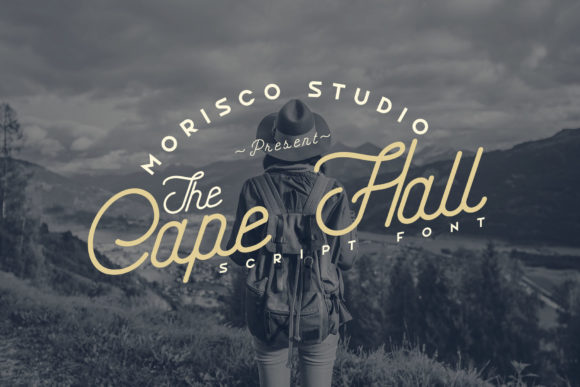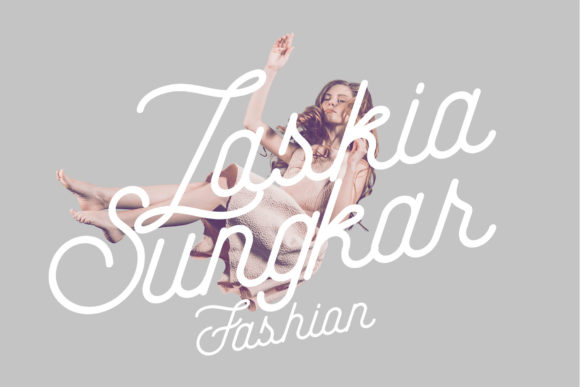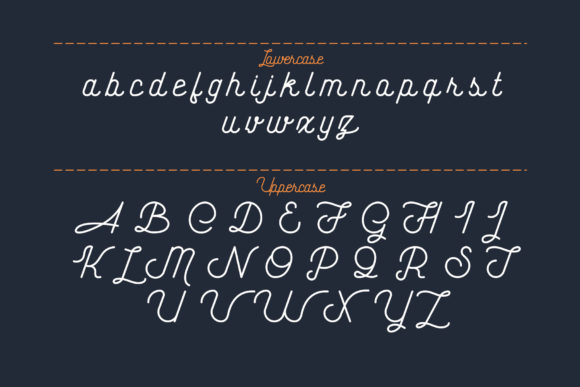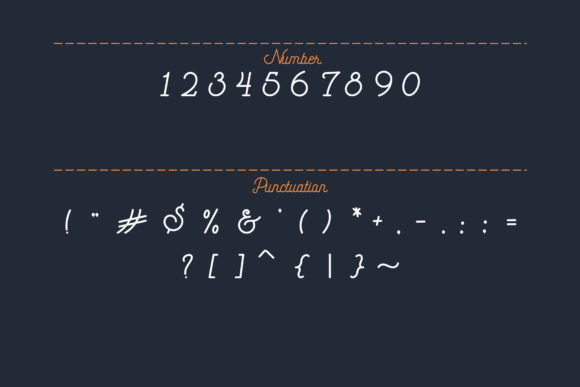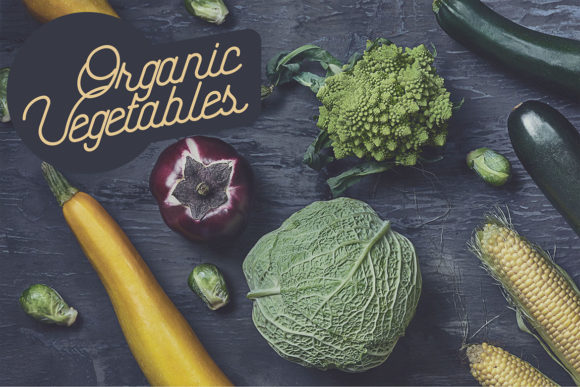
About The Cape Hall Font
The Cape Hall is a versatile and vintage styled handwritten font. Dainty and joyful, this font will be ideal for writing wedding invitations, cards or any other design that may need a romantic, personalized touch!